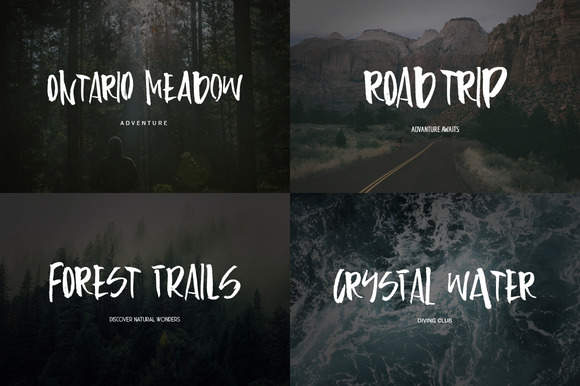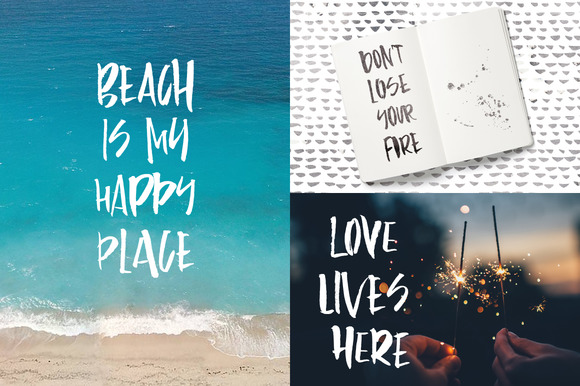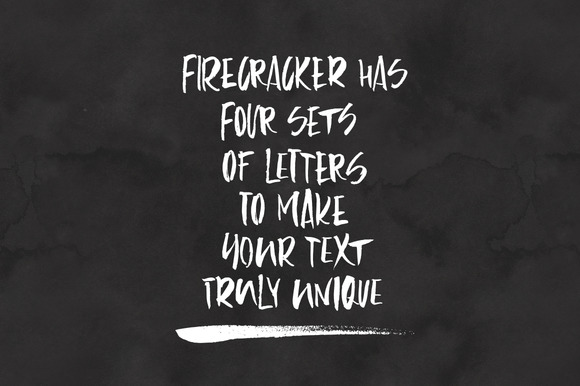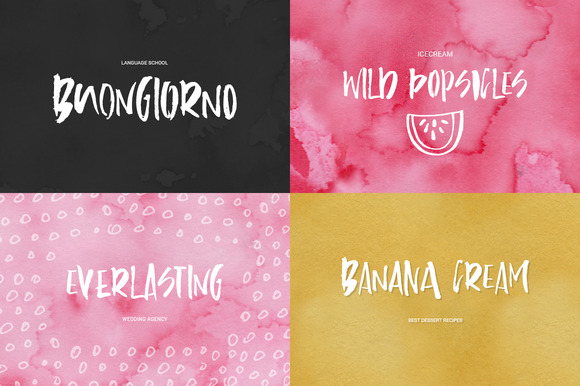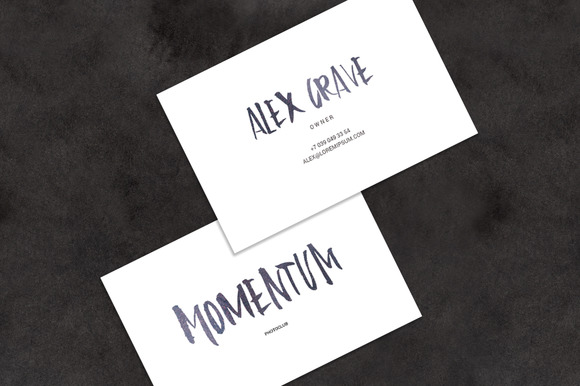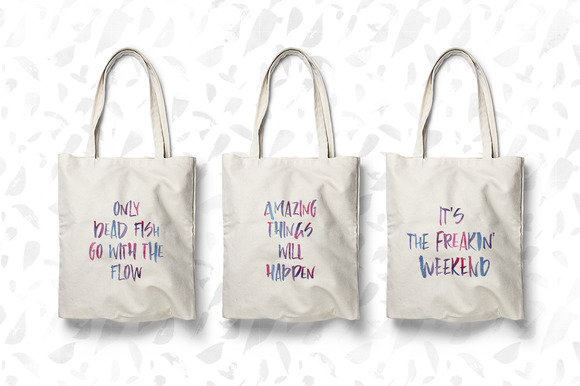
Introducing Firecracker Font: The Edgy, Hand-Lettered Style to Elevate Your Designs
Are you tired of using the same old fonts in your designs? Do you want to add a touch of edginess and authenticity to your text? Look no further than Firecracker Font, a raw-looking uppercase type that’s guaranteed to get your text noticed. With its unique, hand-lettered style, Firecracker Font is perfect for designers and crafters looking to add a bold, eye-catching element to their work.
The Perfect Blend of Edginess and Authenticity
Firecracker Font boasts an edgy look and feel that’s perfect for creating authentic, hand-lettered designs. Its raw, uppercase letters are carefully crafted to give your text a bold, attention-grabbing appearance that’s sure to stand out from the crowd. Whether you’re working on a DIY project, a branding campaign, or a social media graphic, Firecracker Font is the perfect choice for adding a touch of personality and style to your text.
Key Features of Firecracker Font
- Raw, Uppercase Letters: Firecracker Font features bold, uppercase letters that are perfect for creating eye-catching headlines and titles.
- Hand-Lettered Style: With its unique, hand-lettered style, Firecracker Font adds a touch of authenticity and personality to your text.
- Edgy Look and Feel: Firecracker Font’s edgy look and feel make it perfect for designers and crafters looking to add a bold, edgy element to their work.
Firecracker Font is perfect for designers and crafters looking to add a touch of edginess and authenticity to their work. Whether you’re working on a branding campaign, a DIY project, or a social media graphic, Firecracker Font is the perfect choice for adding a bold, eye-catching element to your text. Its unique, hand-lettered style makes it perfect for:
- DIY Projects: Add a touch of personality and style to your DIY projects with Firecracker Font.
- Branding Campaigns: Use Firecracker Font to create bold, eye-catching headlines and titles for your branding campaigns.
- Social Media Graphics: Add a touch of edginess and authenticity to your social media graphics with Firecracker Font.
Tips for Using Firecracker Font
Here are a few tips for using Firecracker Font in your designs:
- Use it Sparingly: Firecracker Font is a bold, attention-grabbing font that’s best used sparingly. Use it for headlines and titles, and pair it with a simpler font for body text.
- Experiment with Colors: Firecracker Font looks great in bold, bright colors. Experiment with different colors to find the perfect look for your design.
- Pair it with Other Fonts: Firecracker Font pairs well with other fonts, especially simple, sans-serif fonts. Experiment with different font combinations to find the perfect look for your design.
Firecracker Font is a raw-looking uppercase type that’s guaranteed to get your text noticed. With its edgy look and feel, and its unique, hand-lettered style, Firecracker Font is perfect for designers and crafters looking to add a bold, eye-catching element to their work. Whether you’re working on a DIY project, a branding campaign, or a social media graphic, Firecracker Font is the perfect choice for adding a touch of personality and style to your text.